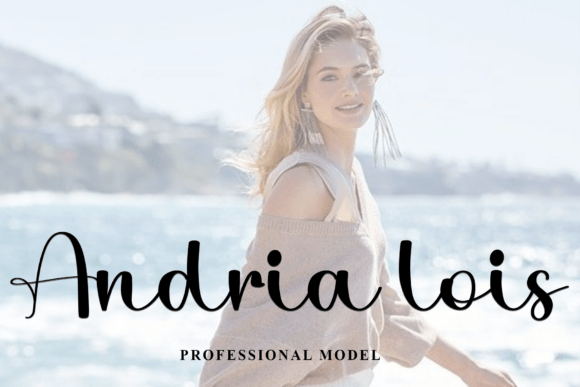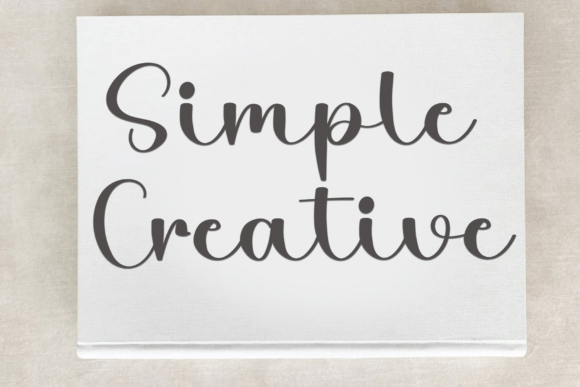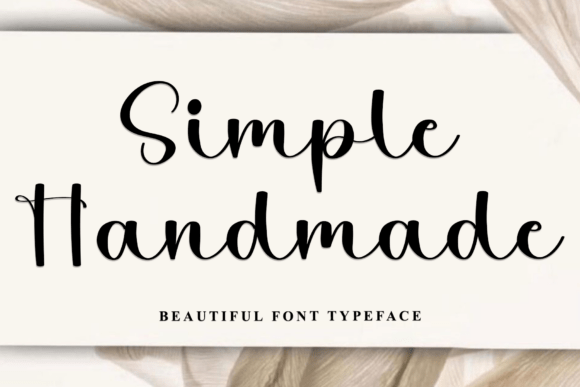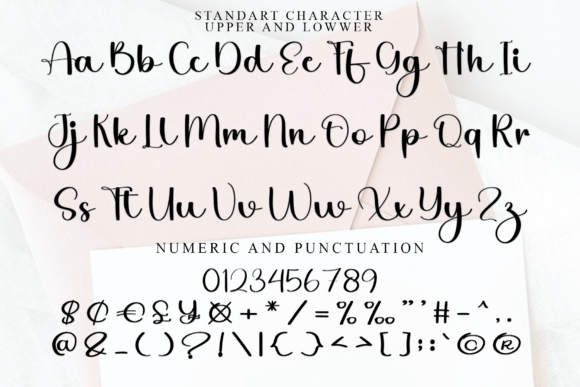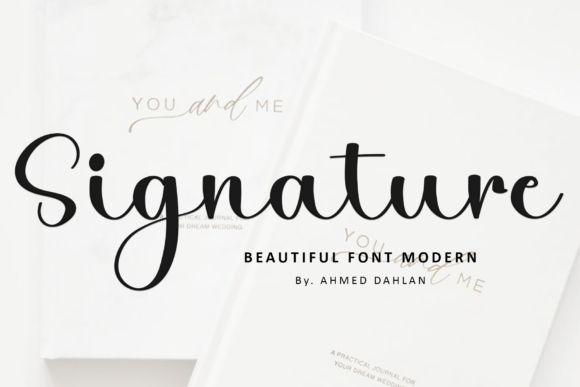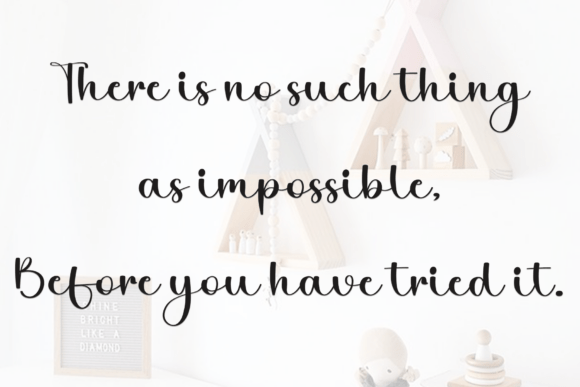
Introducing Angelina Whitening Font: A Timeless Handwritten Beauty
Are you a designer or crafter looking for a font that can add a touch of elegance and sophistication to your designs? Look no further than the Angelina Whitening Font. This lovely and timeless handwritten font is perfect for creating eye-catching logos, branding, and quotes that will leave a lasting impression.
What Makes Angelina Whitening Font So Special?
Angelina Whitening Font is a unique and beautiful handwritten font that stands out from the crowd. Every letter has a distinctive and lovely touch that will make your design come alive. The font’s elegant and cursive style makes it perfect for a variety of design projects, from logos and branding to quotes and social media graphics.
Whether you’re a professional designer or a crafter looking to add a personal touch to your projects, Angelina Whitening Font is the perfect choice. The font’s versatility and elegance make it suitable for a wide range of design projects, including:
- Logos and branding: Create a lasting impression with a custom logo or branding that showcases your unique style.
- Quotes and social media graphics: Add a touch of elegance and sophistication to your quotes and social media graphics.
- Stationery and invitations: Create beautiful stationery and invitations that will make your recipients feel special.
- Packaging and product design: Add a personal touch to your packaging and product design with a unique and beautiful font.
Key Features of Angelina Whitening Font
Here are some of the key features that make Angelina Whitening Font a must-have for designers and crafters:
- Unique and beautiful handwritten style: Every letter has a distinctive and lovely touch that will make your design stand out.
- Elegant and cursive style: Perfect for creating sophisticated and elegant designs.
- Timeless appeal: The font’s classic style ensures that it will never go out of fashion.
- Versatile: Suitable for a wide range of design projects, from logos and branding to quotes and social media graphics.
Angelina Whitening Font is a beautiful and timeless handwritten font that is perfect for designers and crafters. Its unique and elegant style makes it suitable for a wide range of design projects, from logos and branding to quotes and social media graphics. With its versatility and timeless appeal, Angelina Whitening Font is a must-have for anyone looking to add a touch of elegance and sophistication to their designs.